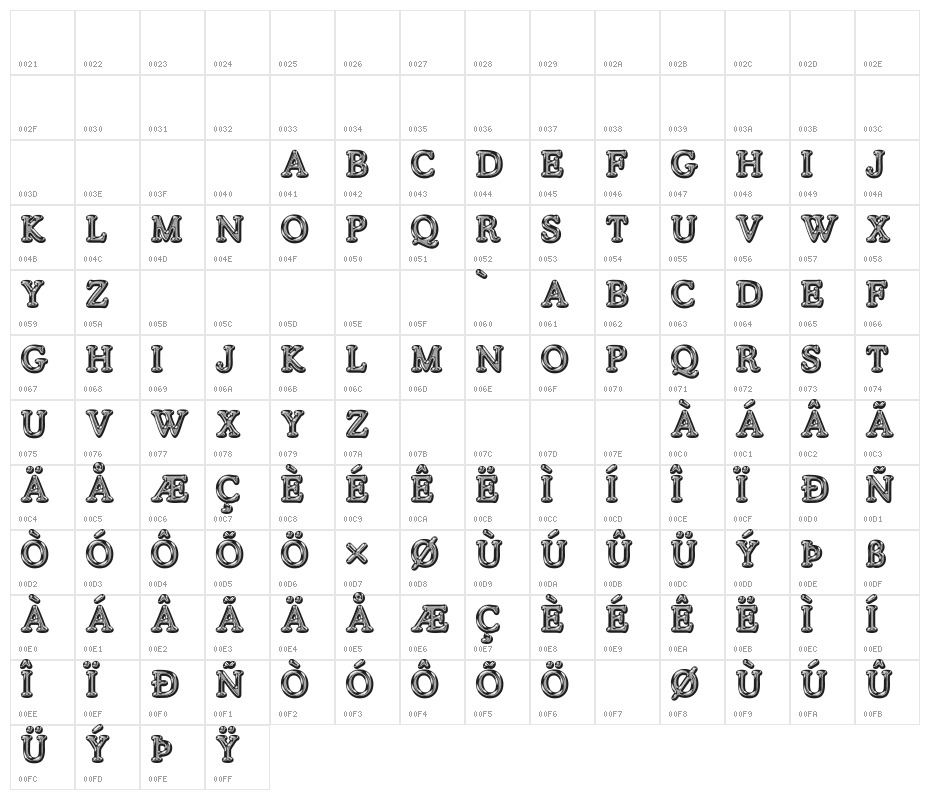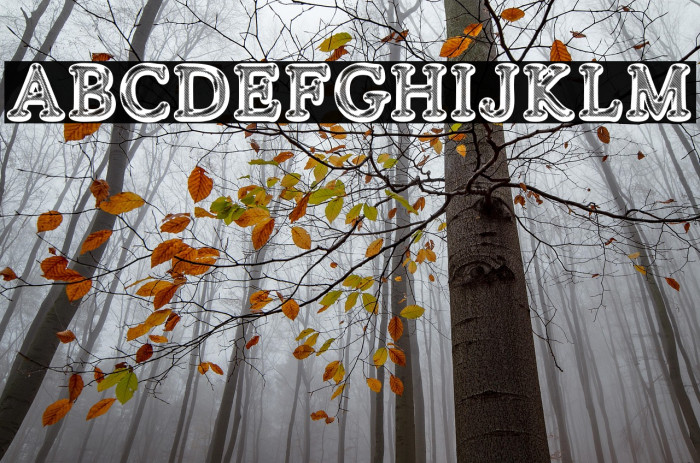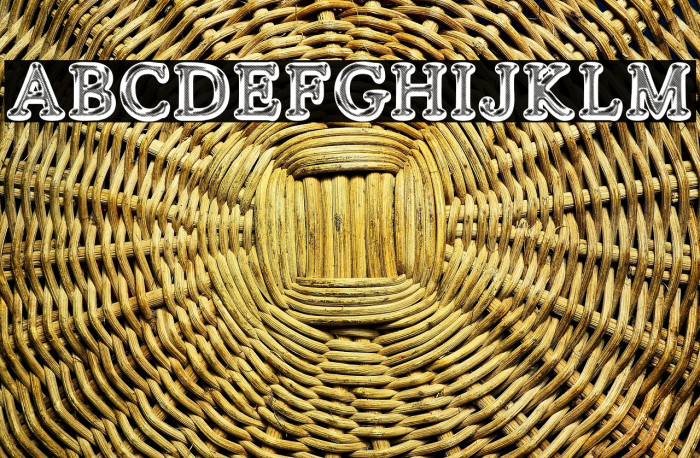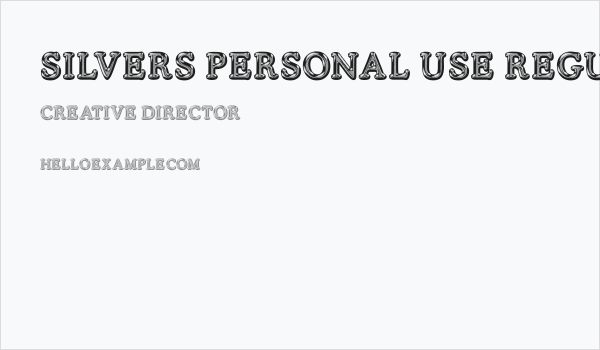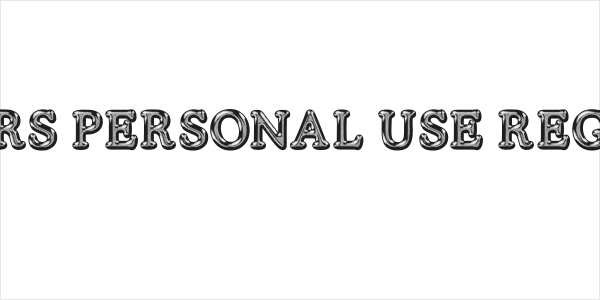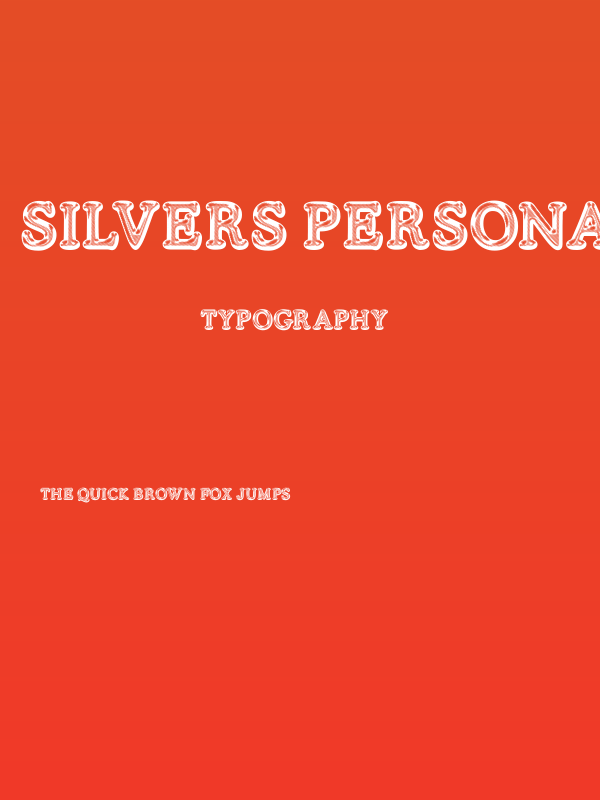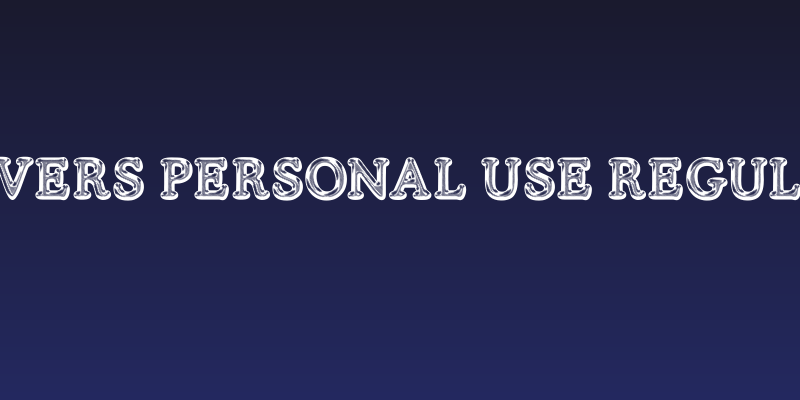
SILVERS PERSONAL USE Regular Font
SILVERS PERSONAL USE Regular Description
This font features a bold, decorative style with a three-dimensional appearance, giving each character a metallic, embossed look. The letters are uppercase and have a consistent, rounded shape with a glossy finish that adds depth and texture. The design is reminiscent of vintage signage or retro advertisements, making it stand out with its unique aesthetic. The font's playful yet sophisticated style makes it suitable for creative projects that require a touch of elegance and flair.
| Proposed Projects | Ideal for vintage-themed posters, retro advertisements, logo design, and creative branding projects. |